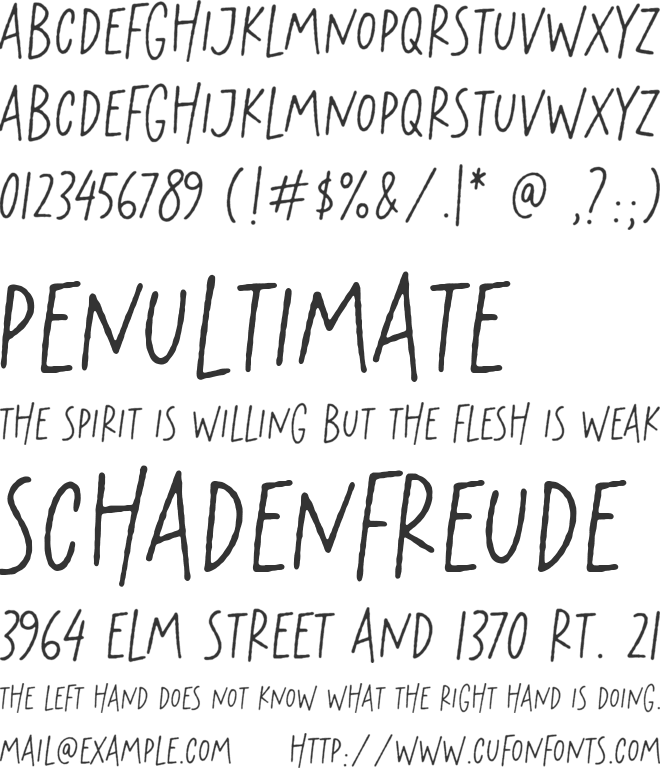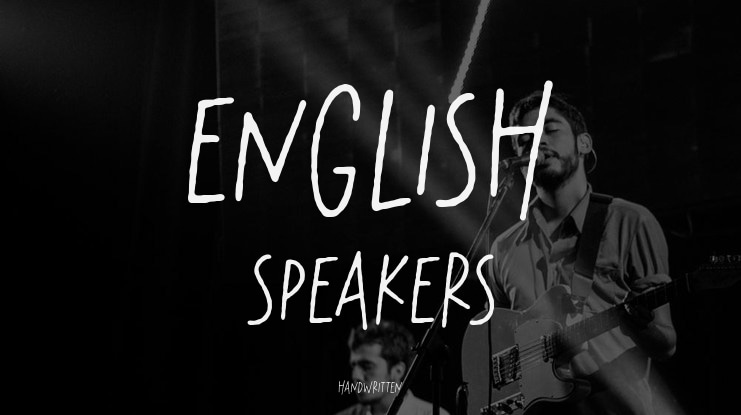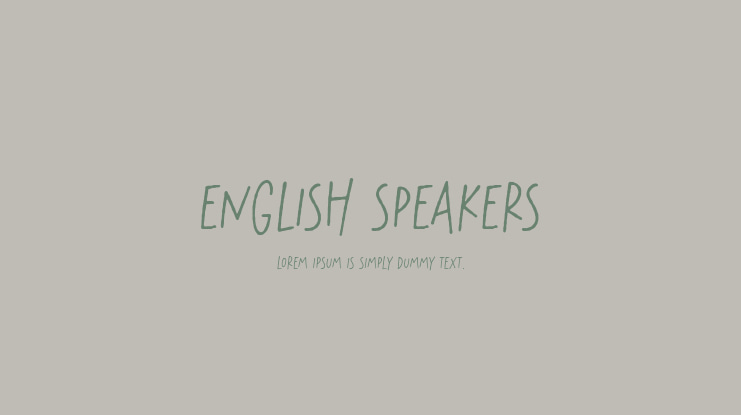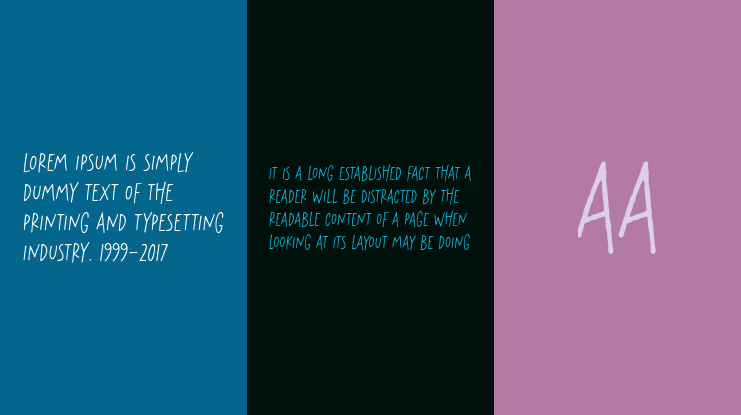
Presented by Timurtype Studio, English Speakers is an elegant Handwritten Display Font that brings a bold and expressive element to your design projects. Its dynamic and lively letterforms encapsulate the essence and fervor of spoken language. The fluid, exaggerated strokes of the English Speakers font lend it a vibrant and animated aesthetic, ideal for attention-grabbing headlines, signage, and promotional materials. Whether you seek a modern and lively appearance or a playful and whimsical vibe, the versatility and impact of the English Speakers font shine through. Dive into the energetic world of the English Speakers handwritten display font and infuse your designs with a splash of excitement.
The font includes formats such as OTF, TTF, and WOFF, making it accessible and versatile for different platforms. Moreover, English Speakers Font is designed to support multilingualism, ensuring its usability across various languages. Featuring a full set of standard alphabet and punctuation characters, the font offers everything you need to elevate your creative projects.